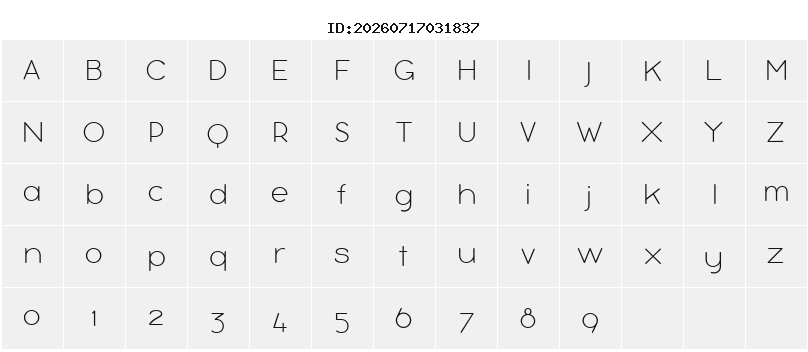
• Font Name: bubbleboddy light
• Font Style: Light
• Font ID: studiokmzero: bubbleboddy light Light: 2010
• Full Font Name: bubbleboddy light Light
• Version: Version 1.001 2010
• PostScript Name: bubbleboddylight-Light
• Character Count: 232
• Designer: Francesco Canovaro
• Manufacturer: studio kmzero
About bubbleboddy light.ttf
bubbleboddy light.ttf is a modern, elegant sans-serif font designed for ultimate readability and visual harmony. Perfect for branding, headlines, web design, and print materials.